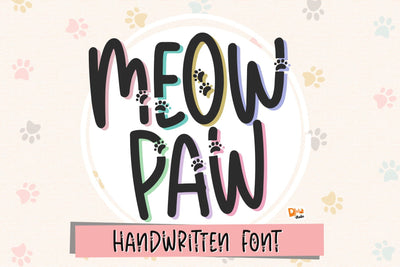
Meow Paw - Cat Handwritten Font
Let's get this MEOW PAW, a fun handwritten Font with the cute paw inside!
Purrfect choice for you who love pets, this font will make any design more adorable and awesome!
-Uppercase (style 1)
-Lowercase (Style 2)
-Numeric
-Symbols